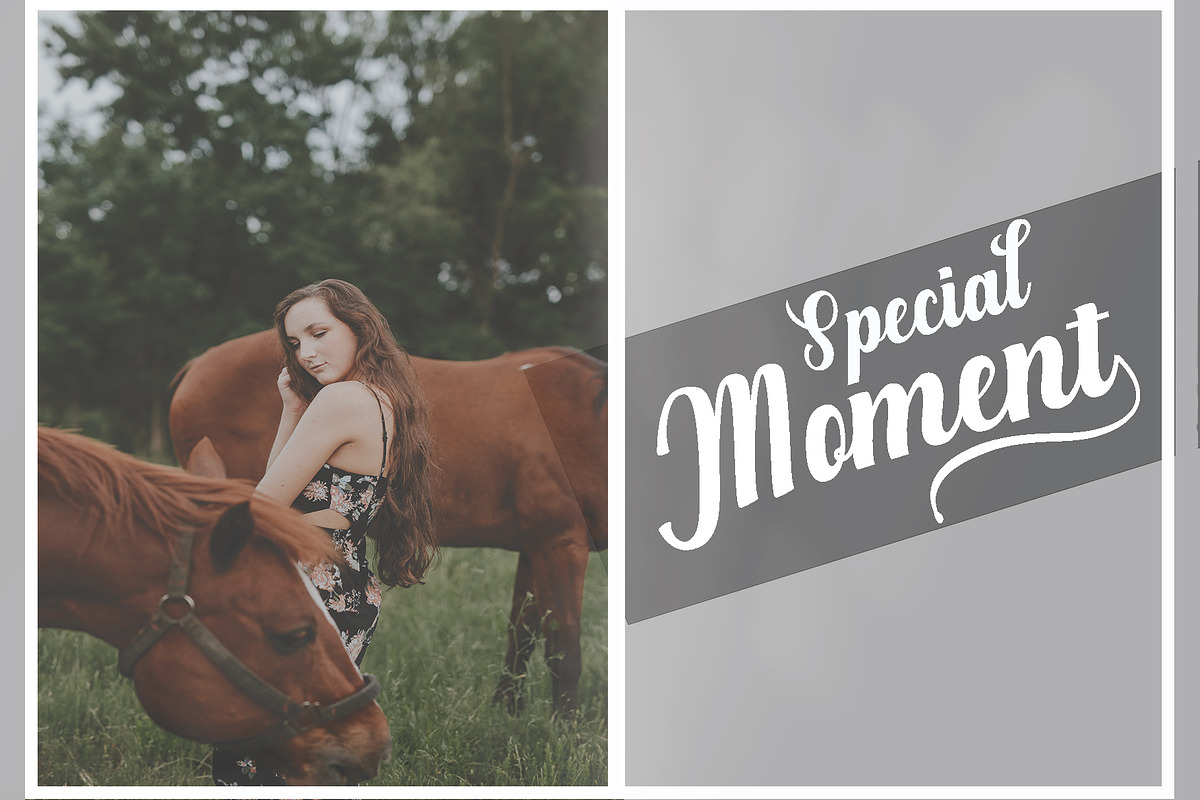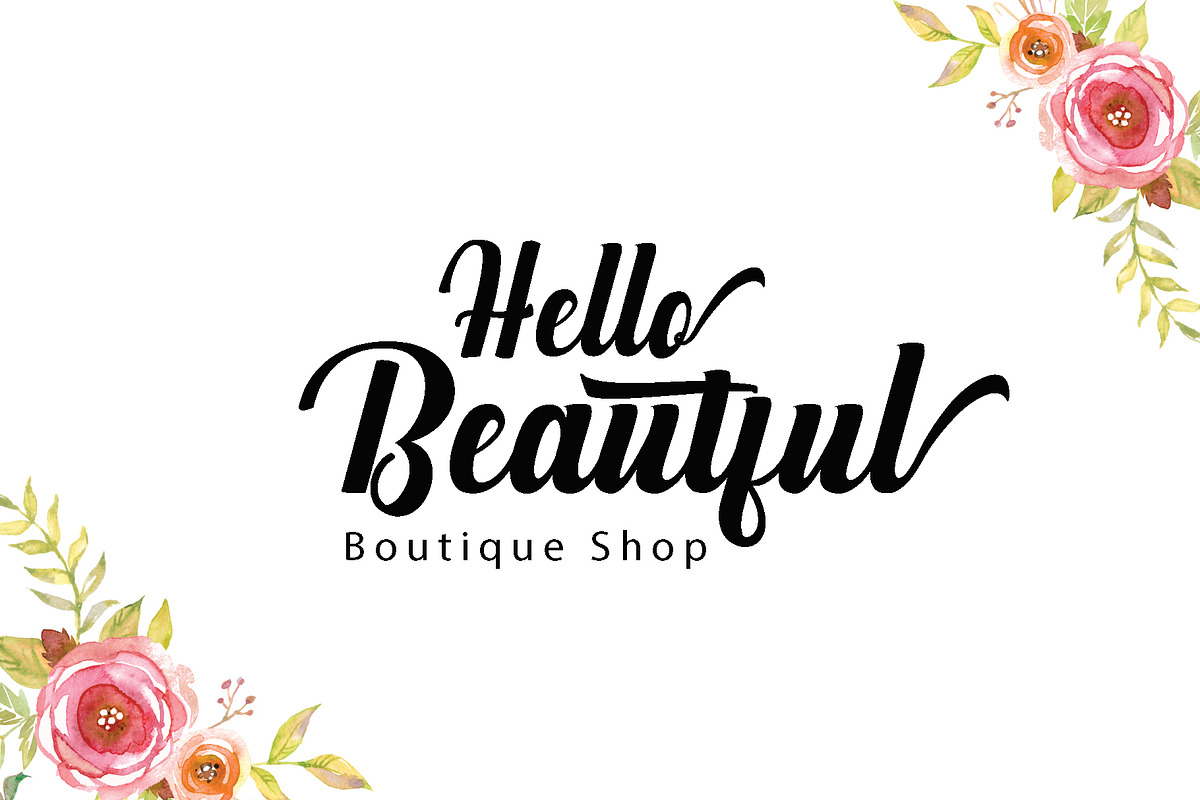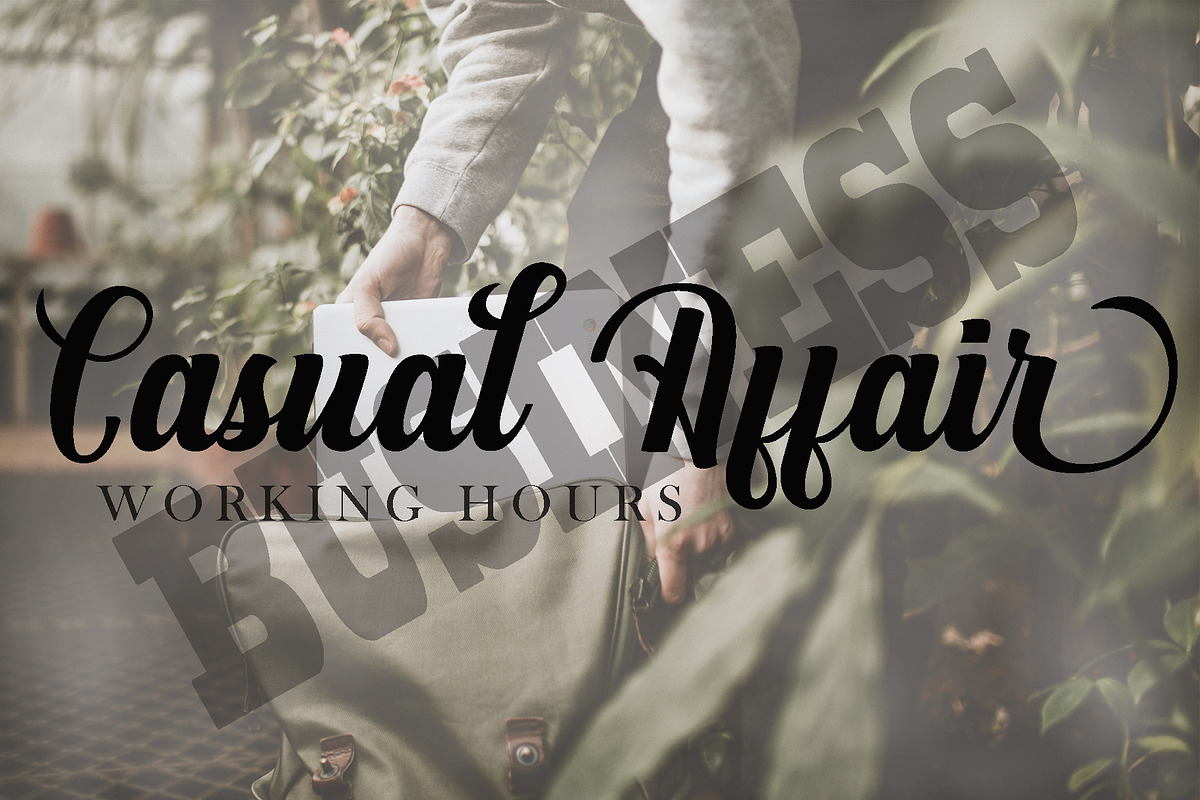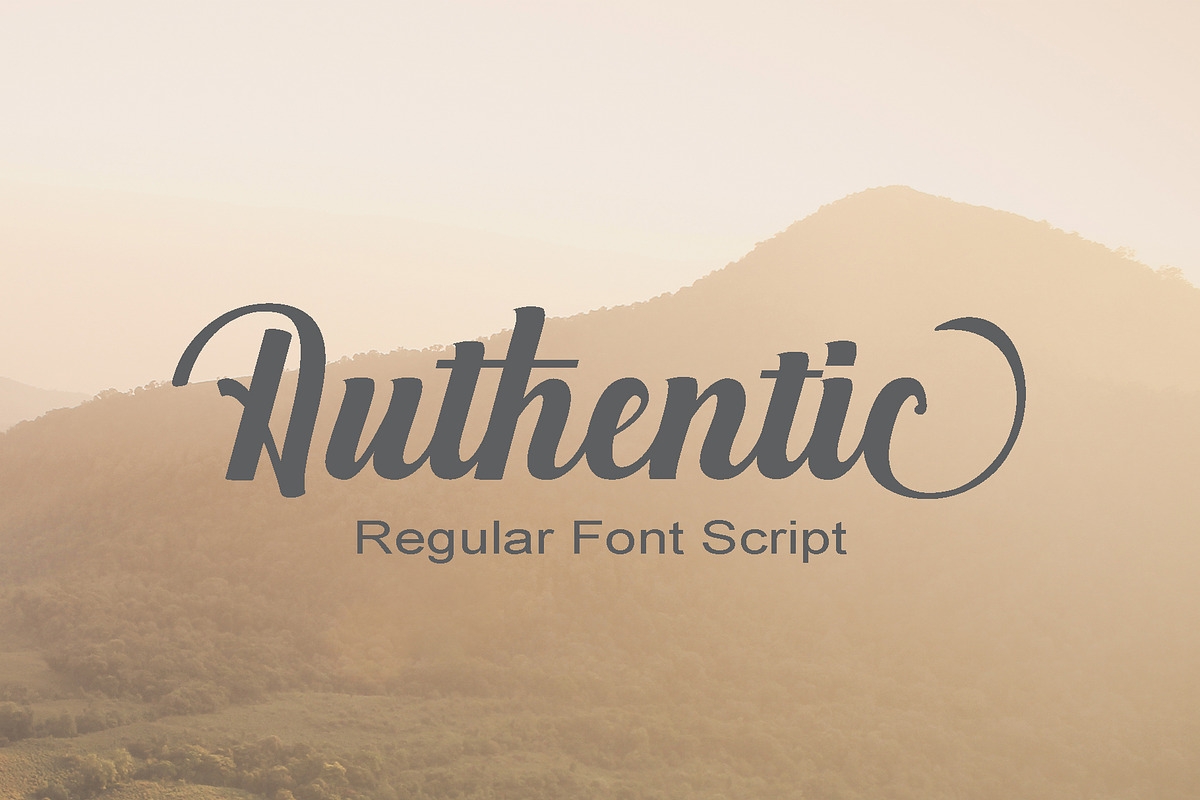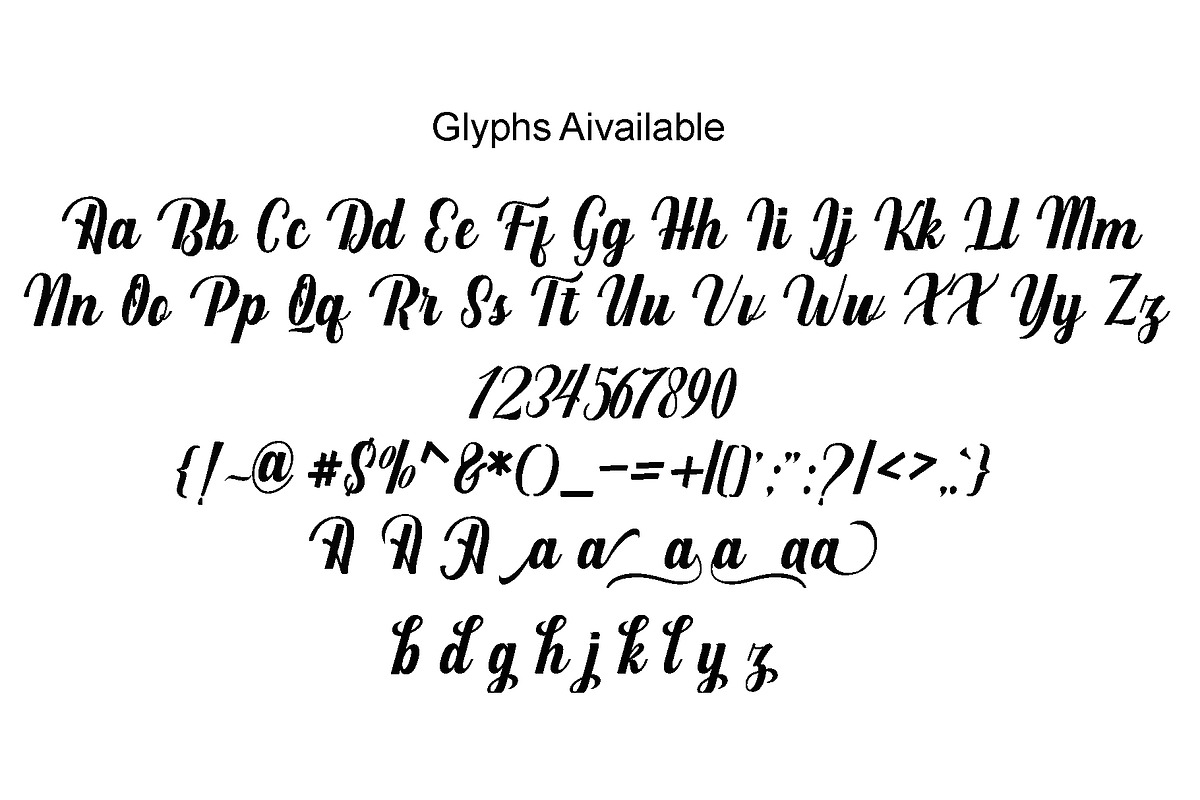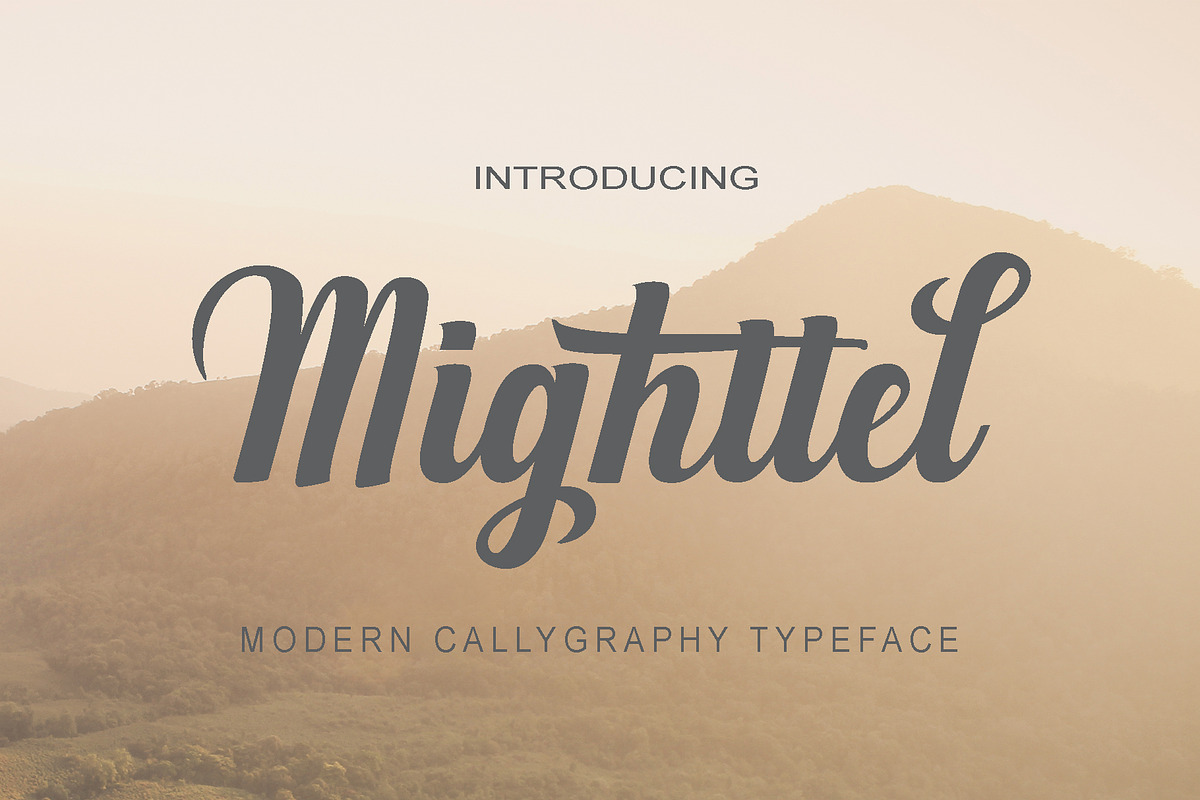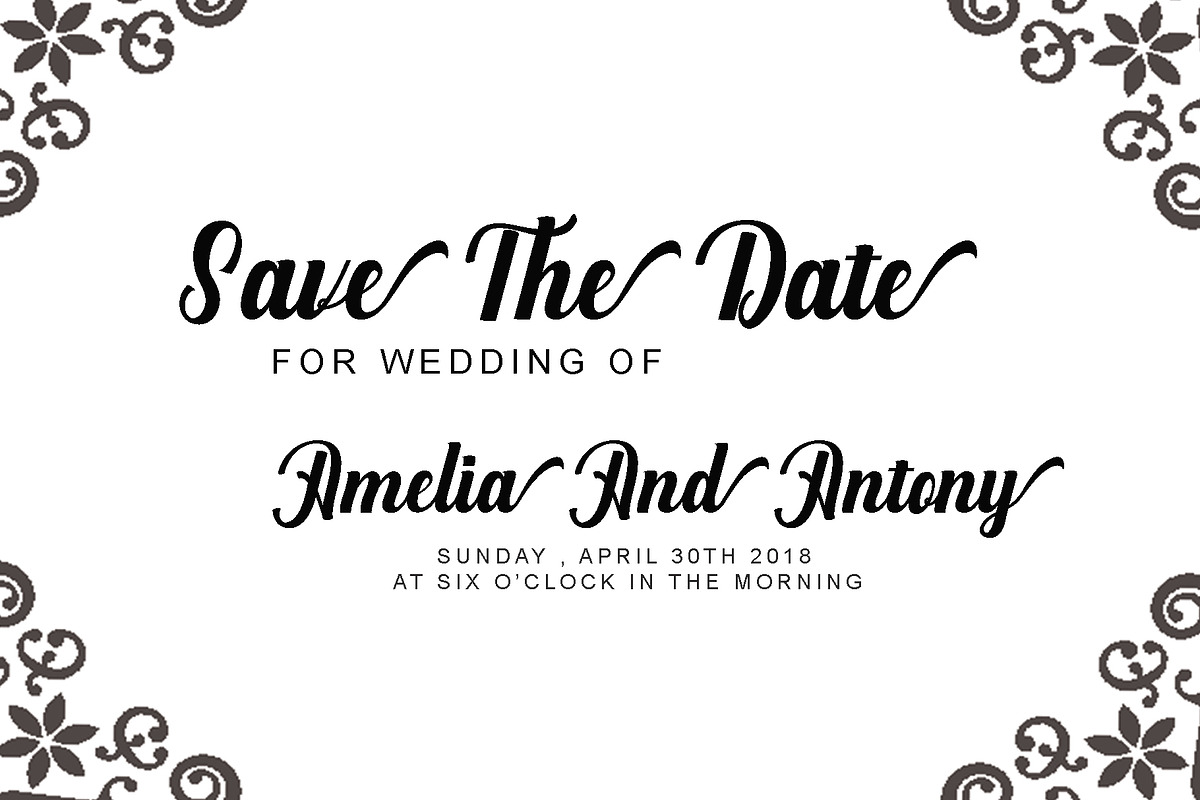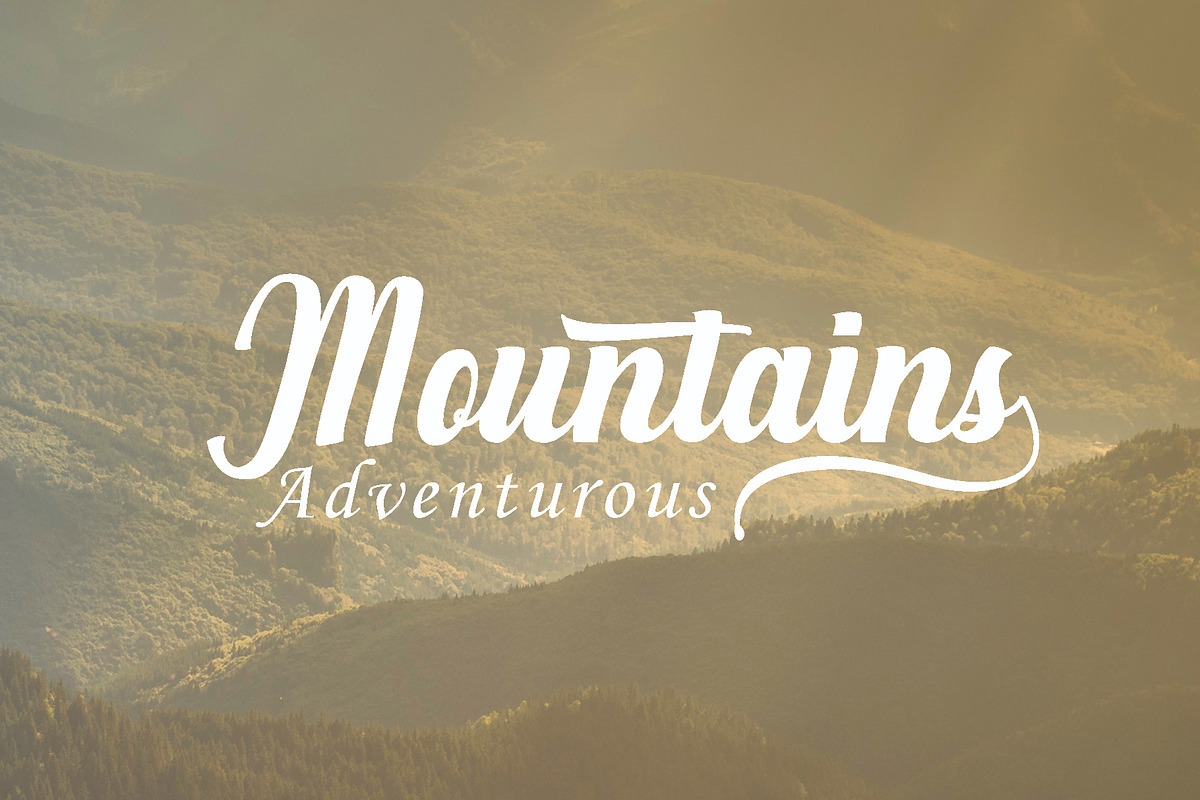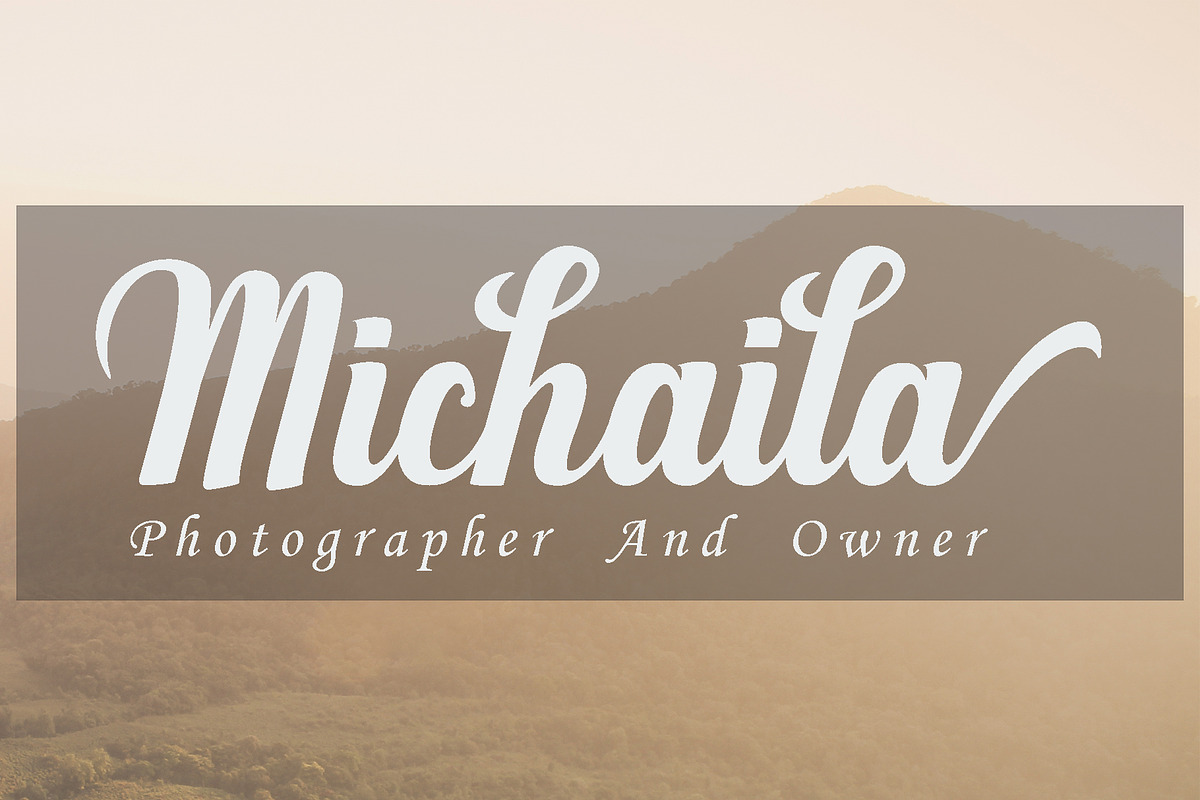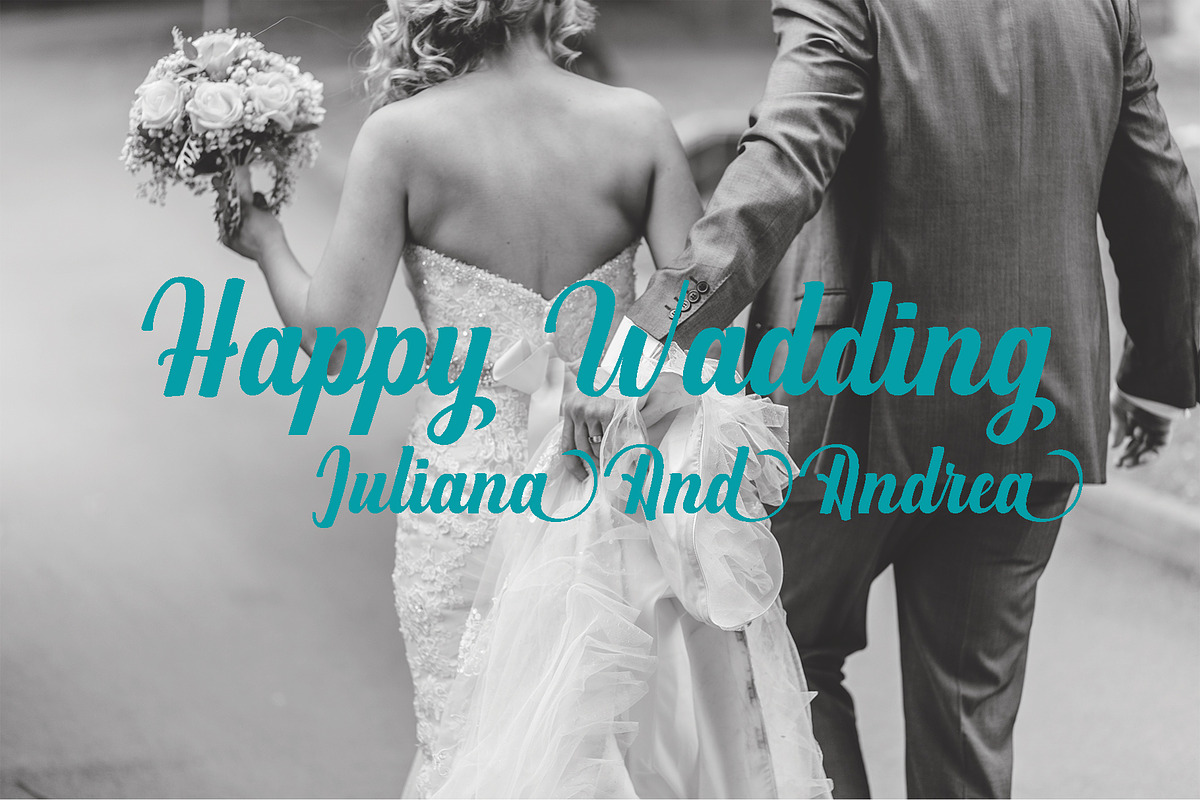
Mighttel
Mighttel a work that is purely handwritten, has natural characteristics. this is perfect for invitations, signatures, blogs, social media, business cards, product brands.
elegant has sets of letters, namely Stylistic standard and Stylistic Alternate. and including uppercase and lowercase letters, numbers and punctuation, are also equipped with ligature.
Can be used for various purposes. Like titles, logos, wedding invitations, t-shirts, letterheads, nameplate, labels, news, posters, badges etc. OpenType features can be accessed by using OpenType smart programs such as Adobe Photo Shop, Adobe Illustrator, Adobe Indesign, Corel Draw and Microsoft Office